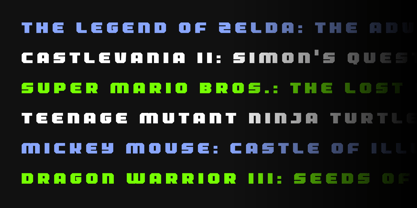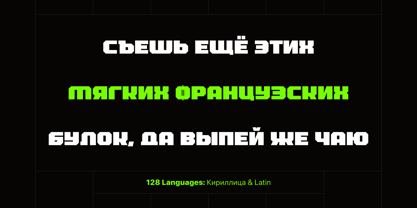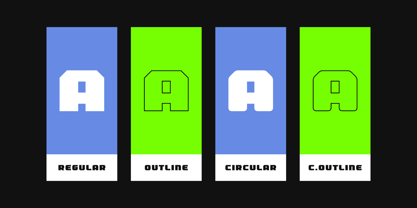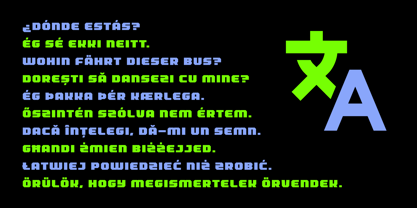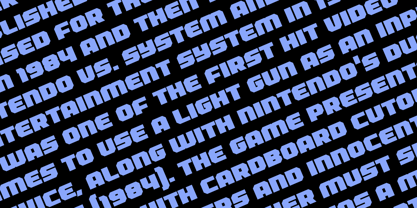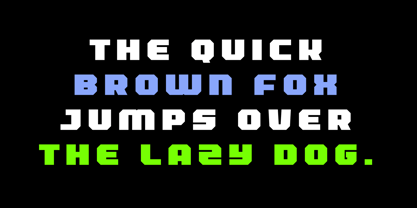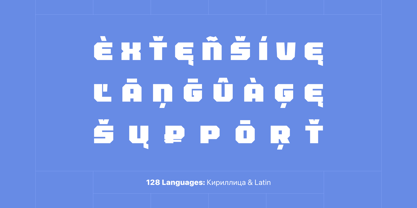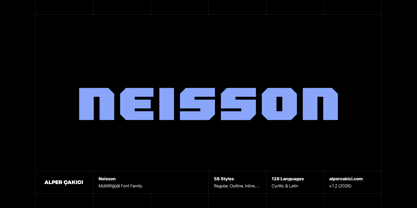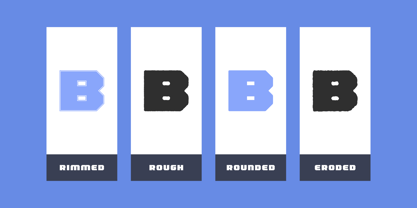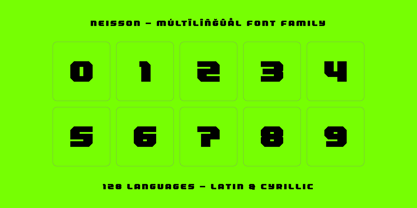
Neisson
by AlperCakici
The Neisson Font Family was designed by Alper Çakıcı and published by AlperCakici. Neisson contains 58 styles and family package options. More about this family
Neisson built for impact, Neisson is a bold, high-energy typeface designed to command attention. It fuses confident geometry with expressive details, delivering typography that feels powerful, modern, and unmistakably strong. Whether you’re building a brand, designing a poster, or crafting a logo, Neisson makes sure your message gets seen. Neisson moves effortlessly between sharp, angular precision and smooth, rounded confidence. With an expansive range of styles, you get the freedom to shape the exact tone your project demands: Each style is carefully engineered for visual consistency while maintaining its own distinct personality — from sleek and modern to gritty and street-inspired. Matching italics inject movement and momentum, perfect for dynamic layouts and layered compositions. Designed for High-Impact Work Neisson excels in: Bold branding systems Eye-catching editorial headlines Street and urban graphics Music, sports, and event visuals Packaging and merchandise Social media content that demands attention With extensive language support and a wide stylistic range, Neisson empowers designers to create expressive, attention-grabbing typography across global markets. If your project needs presence, personality, and power — Neisson delivers.